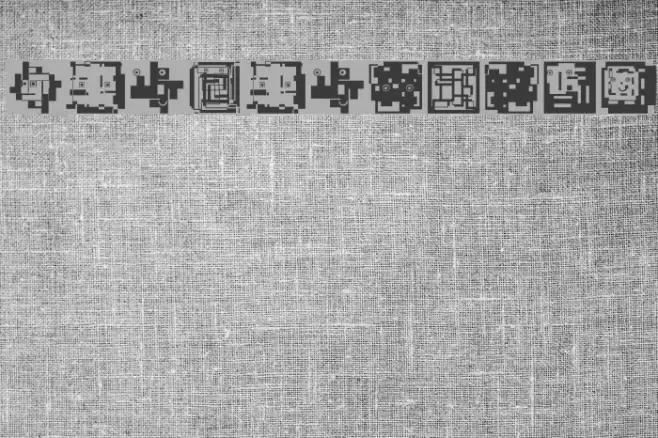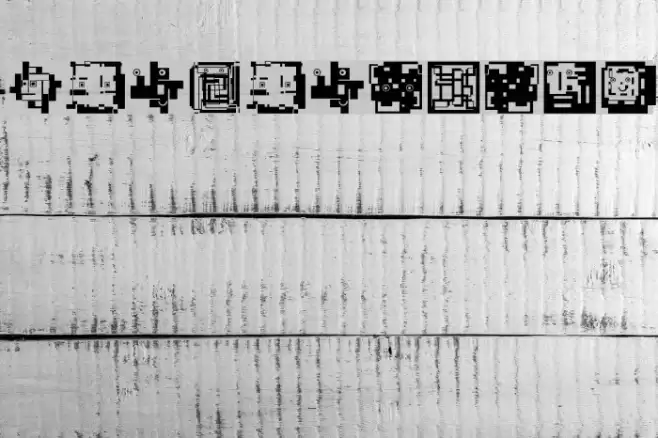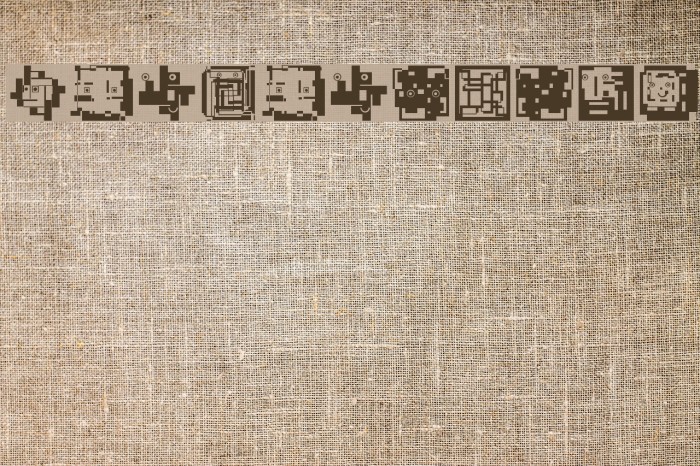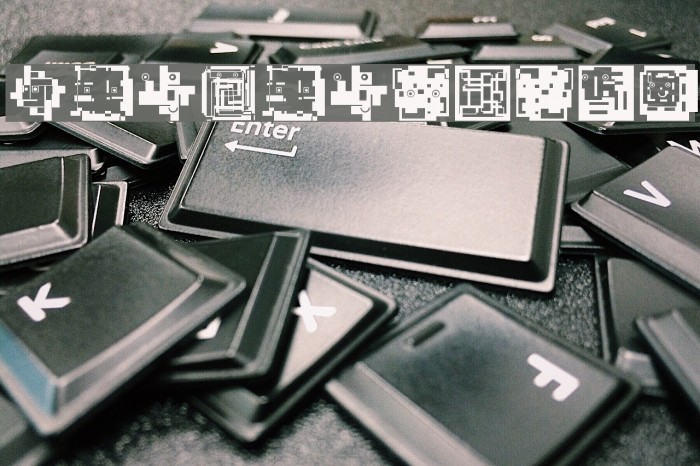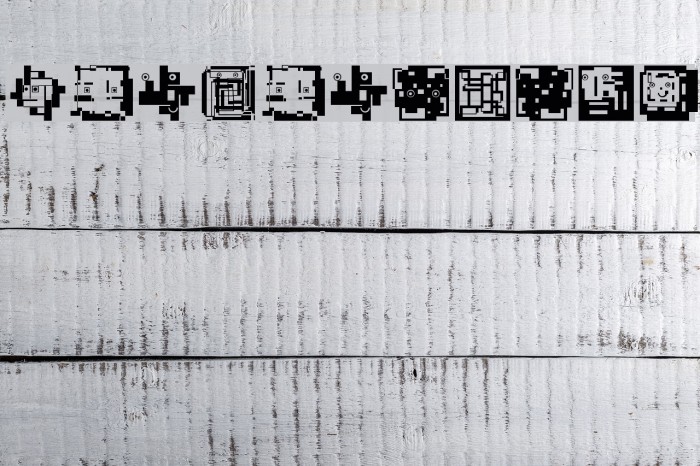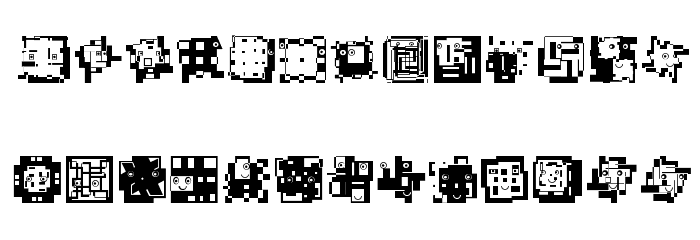
BauhausOSix Font
BauhausOSix Description
This font is a highly decorative and abstract design, characterized by its geometric and pixelated appearance. Each character is uniquely crafted with intricate patterns and shapes, resembling a blend of digital art and traditional typography. The font showcases a creative use of negative space and bold outlines, making it stand out as a statement piece. Its unconventional style is reminiscent of modern art movements, offering a visually striking and artistic appeal. The characters are composed of various geometric forms, including squares, circles, and lines, creating a mosaic-like effect that is both captivating and complex.
A decorative, geometric font with a pixelated, abstract design from Uncategorized fonts.
- Proposed Projects: Ideal for digital art projects, modern posters, album covers, and creative branding.
- Use Case: Logos, Posters, Art projects